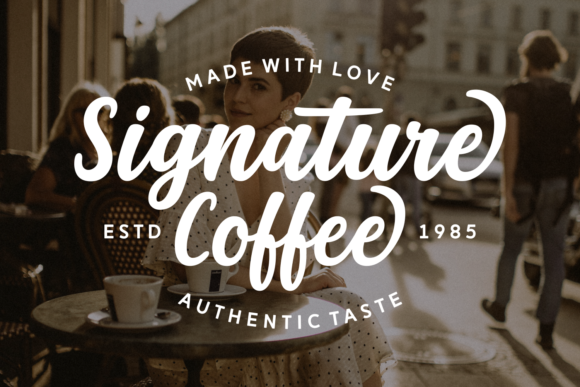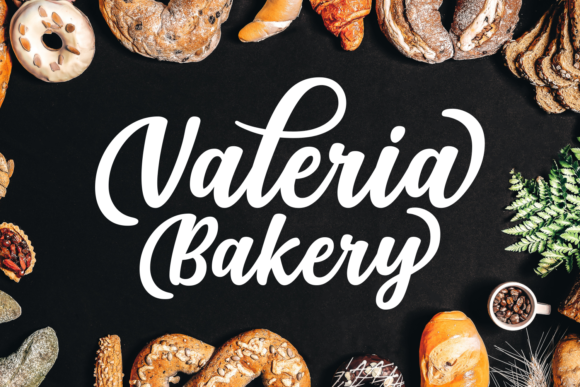
Friday Queen Font
db-ku.com - Script & Handwritten -- Friday Queen is a lovely handwritten font with a unique twist. Get inspired by its adorable and stunning charm.